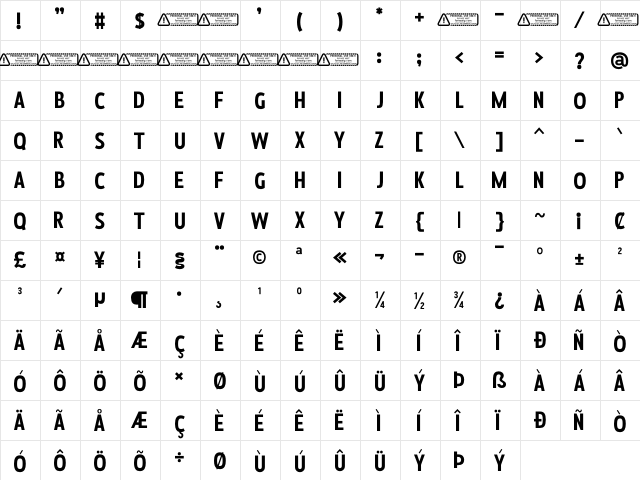
Debaznue PERSONAL USE ONLY! Regular
Foundry: Kong Font
Designer: Kong Font
Design Context for Debaznue PERSONAL USE ONLY!
Debaznue PERSONAL USE ONLY! is a composed and adaptable typeface that performs quietly and consistently across a wide range of design contexts.